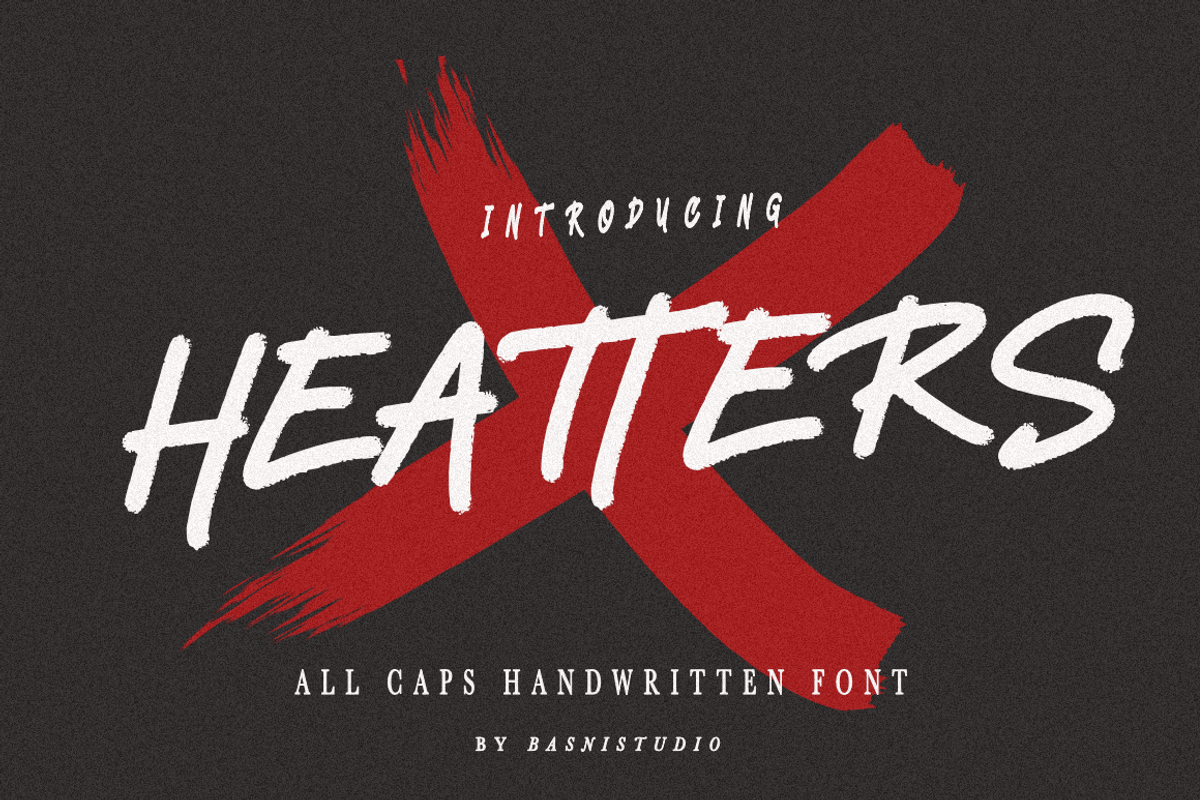
Heatters | All Caps Handwritten Font Free Download
You must purchase this font for commercial use. However, you can download Heatters | All Caps Handwritten Font Free Download for testing purposes. Heatters is a bold and expressive all-caps handwritten font, designed to add personality and energy to your designs. Perfect for logos, posters, headlines, social media graphics, and branding, this font brings a fun, casual touch to any project.
The all-caps design makes it ideal for making strong statements, while the handwritten strokes give it a personal and authentic feel. Whether you're working on a creative project, a modern brand, or a lively event, Heatters adds a dynamic and engaging typography element to your work.